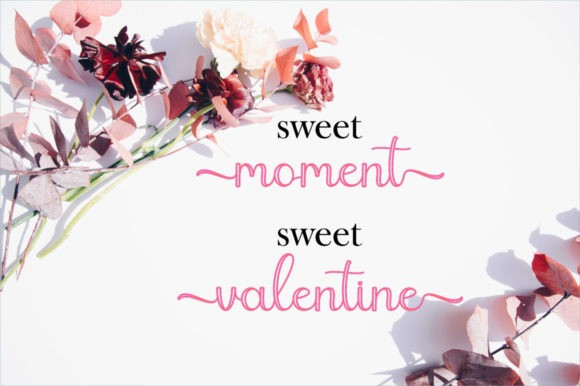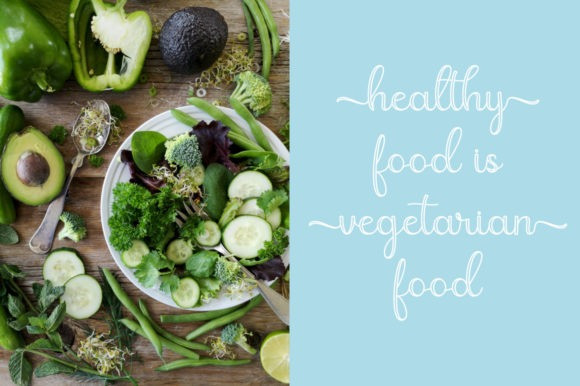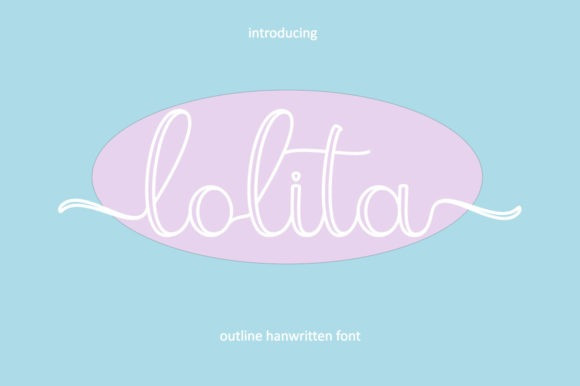
Lolita Script Font
Lolita Script Font is a beautiful outline handwritten font. It will look stunning on any poster, flyer or print. This font is PUA encoded which means you can access all glyphs and swashes with ease!